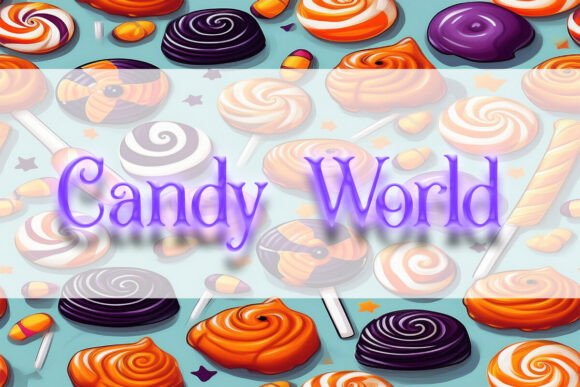
Candy World Font: A Whimsical Charm for Creative Endeavors
Are you looking for a font that can add a touch of playfulness and charm to your creative projects? Look no further than the Candy World Handwritten Font. This delightful font is perfectly crafted to bring a sense of whimsy and fun to a wide range of applications, from shirts and stickers to bold branding concepts and more.
The Versatility of Candy World Font
One of the standout features of Candy World Font is its versatility. This font is not limited to a specific type of project or medium. Instead, it can be used in a variety of creative endeavors, including:
- Shirts and Sticker Designs: Add a pop of personality to your apparel and accessories with Candy World Font. Its playful flourish is sure to make your designs stand out.
- Magazines and Animations: Bring a touch of whimsy to your magazine layouts and animations with Candy World Font. Its unique charm is sure to captivate your audience.
- SVG Files and Cricut Crafting Projects: Candy World Font is perfect for Cricut crafting projects, allowing you to create custom vinyl designs, iron-on transfers, and more.
- Greeting Cards and Heartfelt Messages: Add a personal touch to your greeting cards and letters with Candy World Font. Its playful charm is sure to make your messages more special.
- Movie Posters and Social Media Visuals: Use Candy World Font to create eye-catching movie posters and social media graphics that are sure to grab attention.
The Benefits of Using Candy World Font
So why choose Candy World Font for your creative projects? Here are just a few benefits of using this delightful font:
- Unique and Playful Design: Candy World Font features a unique and playful design that is sure to add a touch of charm to your projects.
- Highly Versatile: This font can be used in a wide range of applications, from digital designs to print materials.
- Easy to Read and Understand: Despite its playful design, Candy World Font is easy to read and understand, making it perfect for use in body text and headlines.
- Scalable and Flexible: Candy World Font is highly scalable and flexible, allowing you to use it in a variety of sizes and formats.
Tips for Using Candy World Font
To get the most out of Candy World Font, here are a few tips to keep in mind:
- Use it in Combination with Other Fonts: Candy World Font pairs well with a variety of other fonts. Experiment with combining it with different fonts to create unique and interesting effects.
- Experiment with Different Colors and Textures: Don’t be afraid to experiment with different colors and textures when using Candy World Font. This can help to add depth and interest to your designs.
- Keep it Simple and Clear: While Candy World Font is playful and fun, it’s still important to keep your designs simple and clear. Avoid overcrowding your designs with too much text or imagery.
In conclusion, Candy World Handwritten Font is a versatile and playful font that is perfect for a wide range of creative endeavors. Its unique charm and whimsical design make it an excellent choice for designers and crafters looking to add a touch of fun and personality to their projects. Whether you’re working on a shirt design, a magazine layout, or a social media graphic, Candy World Font is sure to bring a smile to your audience’s face. So why not give it a try and see the magic for yourself?
Get Ready to Immerse Yourself in the Whimsical Charm of Candy World Font
With its captivating allure and playful flourish, Candy World Font is the perfect choice for anyone looking to add a touch of whimsy to their creative projects. So dive in and explore the world of Candy World Font today. Let your creativity soar and see where this delightful font takes you!